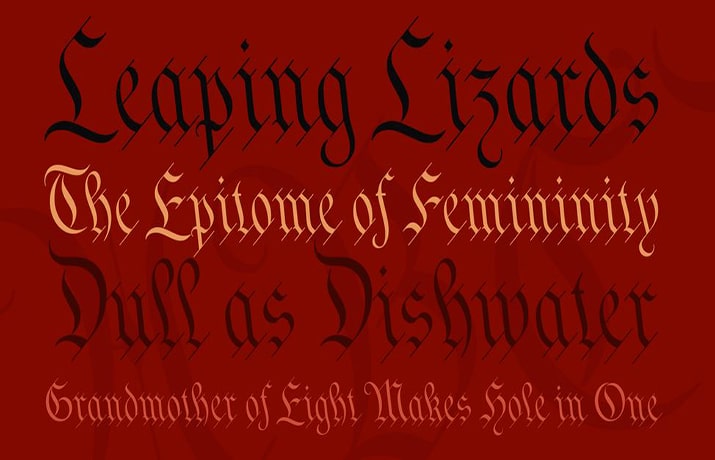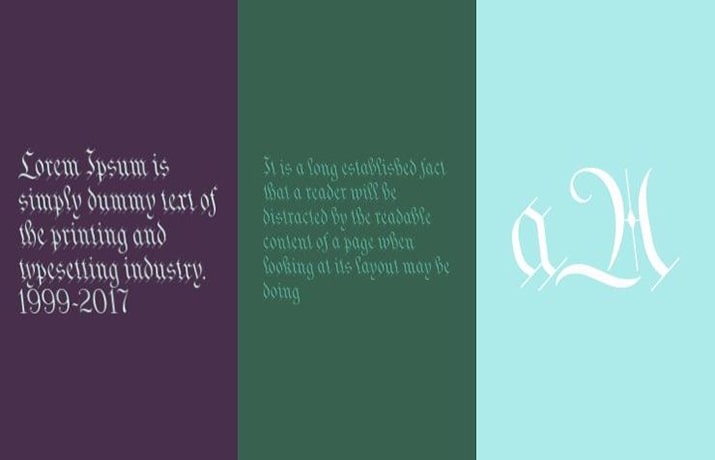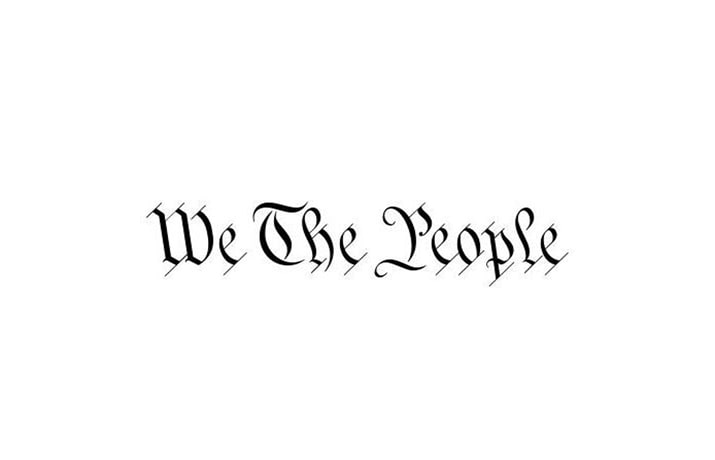
Addams Family Font! But before we talk about its font, we want to talk about this movie. It is a fictional home movie made by American cartoonist Charles Adams.
So, we are here to tell you everything related to the font used in its title. It’s called Fiddums Family, which is a great Gothic font family available at Fonts Monster.
| Font Name: | Fiddums Family Font |
| Style: | Gothic, Display, Various |
| Font Designer: | Jeff Bellini |
This font comes in just a regular style with basic TrueType features. Also, it contains 91 characters including uppercase, lowercase, numbers, and some punctuation marks.